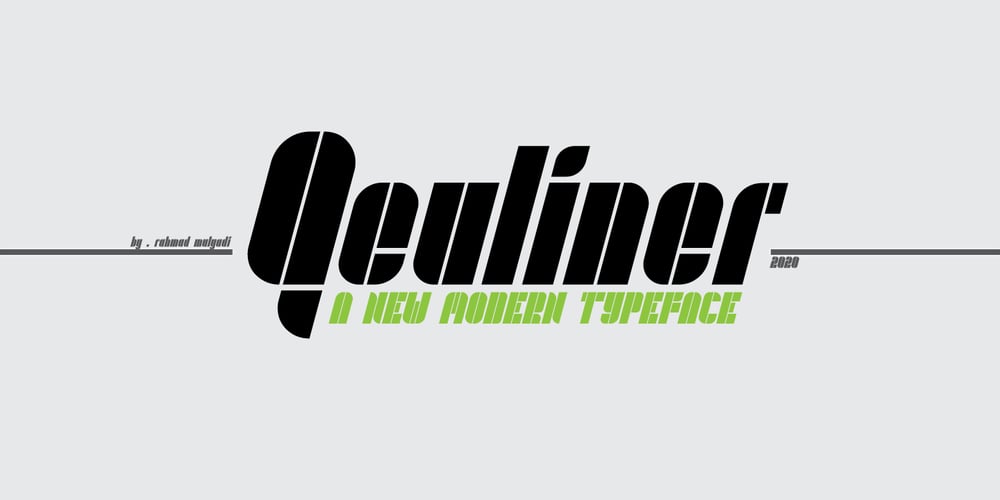
Qeuliner
Qeuliner font
Qeuliner Font Family was designed by Rahmad Mulyadi and published by BaronWNM. Qeuliner contains 1 styles and family package options. Qeuliner is a font with a modern, sporty, and futuristic design. Carrying the form of oblique blocks separated by vertical lines. Very suitable for use on sports-themed displays, racing, games, space, etc.